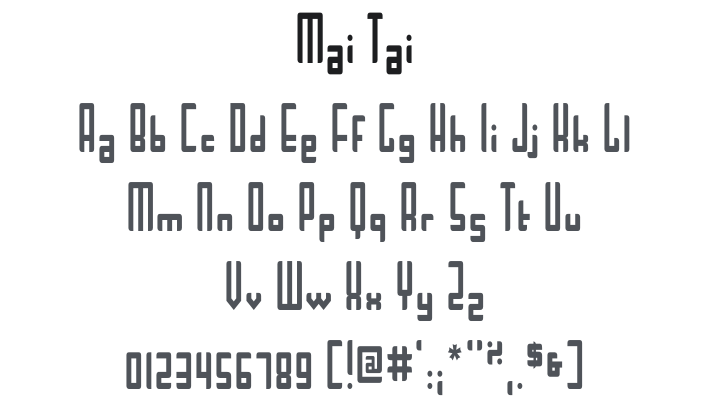
Mai Tai Font
About Mai Tai
Mai Tai is a bold, condensed display typeface with tall, narrow letterforms built from thick rounded-rectangle strokes — giving it a chunky, almost industrial softness. The mix of large uppercase-style caps with smaller versions creates a playful, mixed-height rhythm. Its heavy, compact character feels retro-digital and approachable. Perfect for game titles, urban branding, tech-themed posters, and any headline needing bold presence in a tight space.